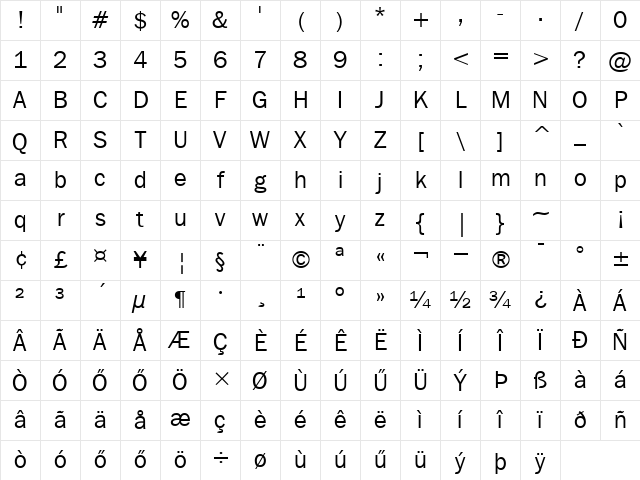
H_Franklin Gothic Bk BT Regular
Complete H_Franklin Gothic Bk BT Regular glyph index. Displaying only characters natively supported by H_Franklin Gothic Bk BT Regular font.
Design Context for H_Franklin Gothic Bk BT
H_Franklin Gothic Bk BT takes a clean, functional approach - its unadorned letterforms prioritise legibility and work reliably across screen and print environments.
Font Pairing: Works well alongside a characterful serif or display font that can carry the expressive load while H_Franklin Gothic Bk BT handles the functional copy.
Pro Tip: Use H_Franklin Gothic Bk BT for UI labels, navigation, and short-form body copy where clean legibility is the priority.